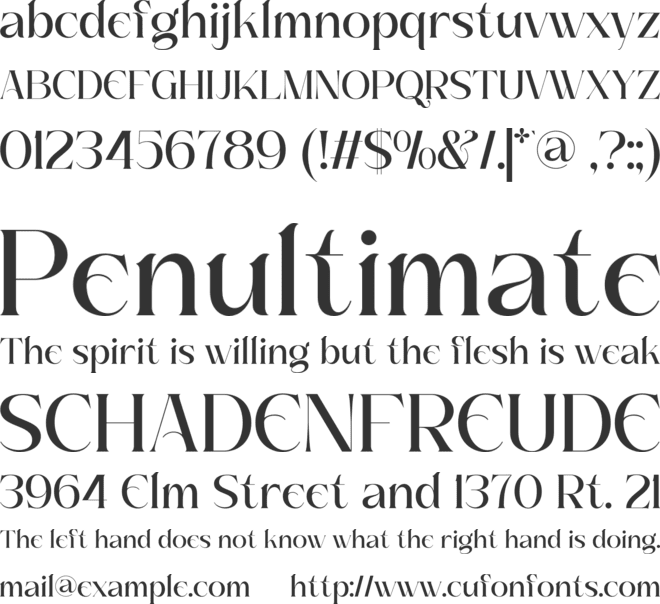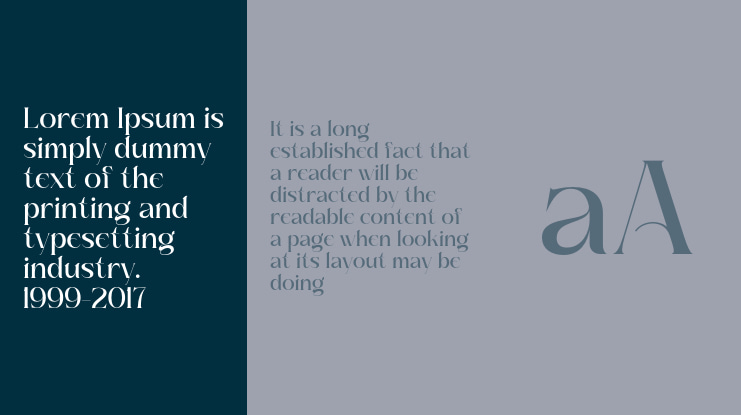
Brideside Font
Brideside is an elegant display serif font family with graceful curves and a distinctive botanical touch.
Burntilldead - Illustrator and Typefoundry